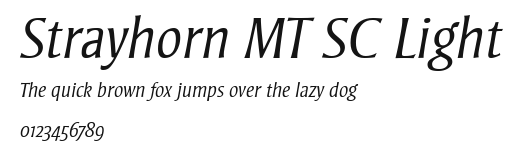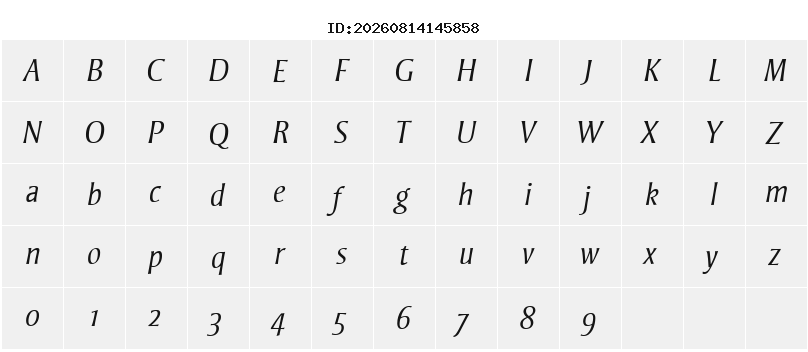
Strayhorn MT SC Light Preview
• Font Name: Strayhorn MT SC Light
• Font ID: Monotype - Strayhorn MT OsF Light Italic
• Full Font Name: Strayhorn MT OsF Light Italic
• Version: Version 1.00 - December 2000
• PostScript Name: StrayhornMT-LightItalicOsF
• Character Count: 250
• Manufacturer: Agfa Monotype Corporation
About Strayhorn MT SC Light.ttf
Strayhorn MT SC Light.ttf is a modern, elegant sans-serif font designed for ultimate readability and visual harmony. Perfect for branding, headlines, web design, and print materials.